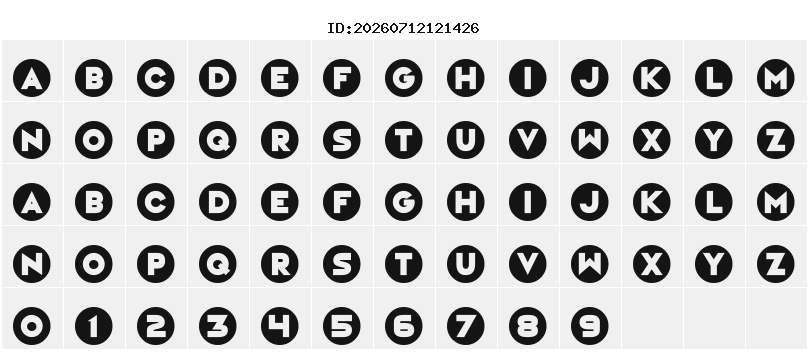
Magic Marbles Preview
• Font Name: Magic Marbles
• Full Font Name: Magic Marbles Italic
• Version: Version 1.00 September 27, 2014, initial release
About Magic Marbles.otf
Magic Marbles.otf is a modern, elegant sans-serif font designed for ultimate readability and visual harmony. Perfect for branding, headlines, web design, and print materials.